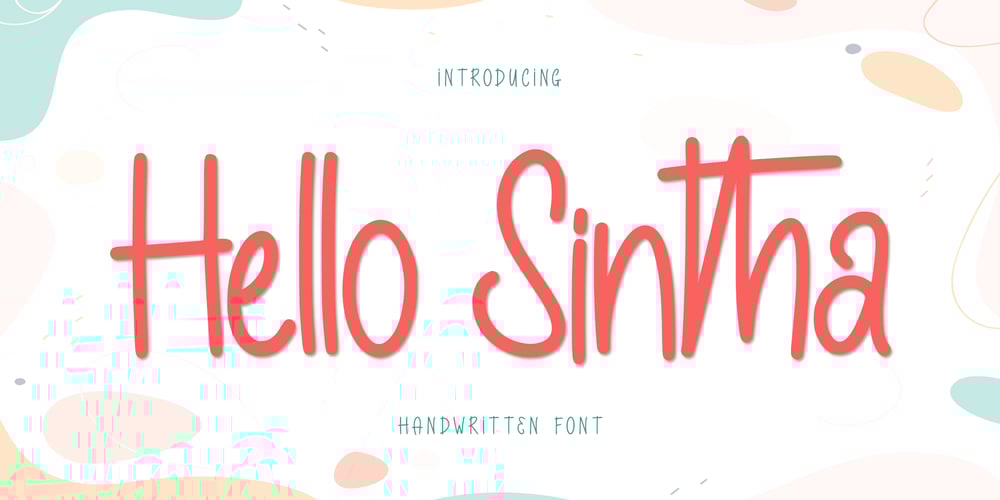
Hello Sintha Font Family was designed by Alif Ryan Zulfikar and published by Sakha Design. Hello Sintha contains 2 styles and family package options. Hello Sintha is a fun and friendly handwritten font. Whether you are using it for cartoon-related designs, children’s games, quotes, titles, brand names, book covers, posters, or just any creation that requires a touch of joy, this font is a great choice.